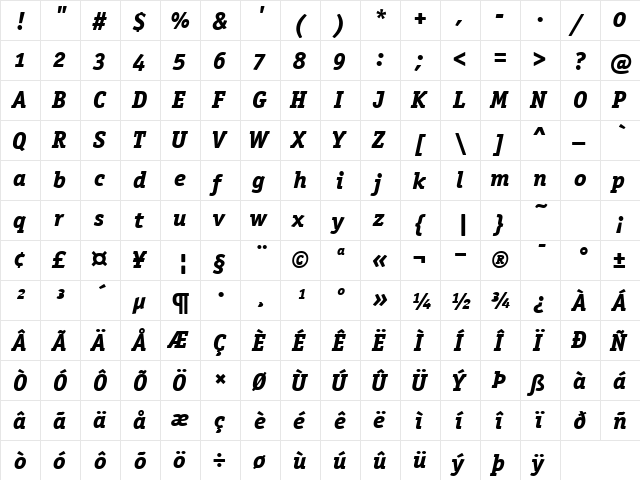
OfficinaSerOSITCTT ExtBoldIta Font Preview
OfficinaSerOSITCTT ExtBoldIta
OfficinaSerOSITCTT ExtBoldIta Font Details
| Style | ExtBoldIta |
| Foundry | International Typeface Corporation |
| Designer | Erik Spiekermann/Ole Schaefer |
Design Context for OfficinaSerOSITCTT Typeface
OfficinaSerOSITCTT is a composed and adaptable typeface that performs quietly and consistently across a wide range of design contexts. The heavy weight commands attention and anchors typographic hierarchies.